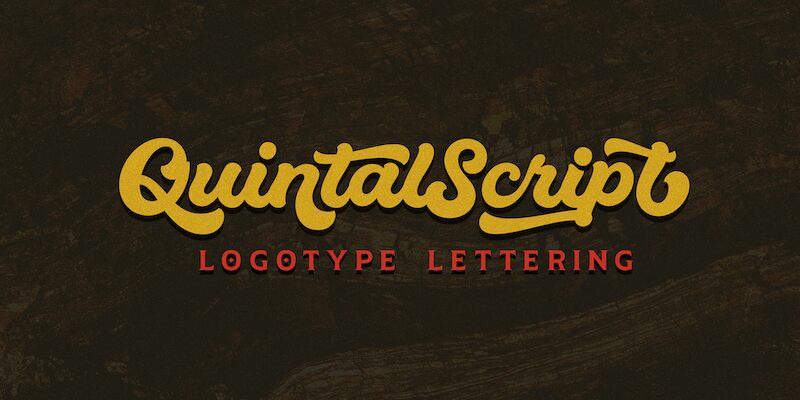
Quintal Script font is a old school brush typeface designed by Mans Greback.
Use underscore _ for a beautiful swash.
Example: Quintal_
Use multiple underscores for different swashes.
Example: Hand____
Mans Greback & Sarwo Edi